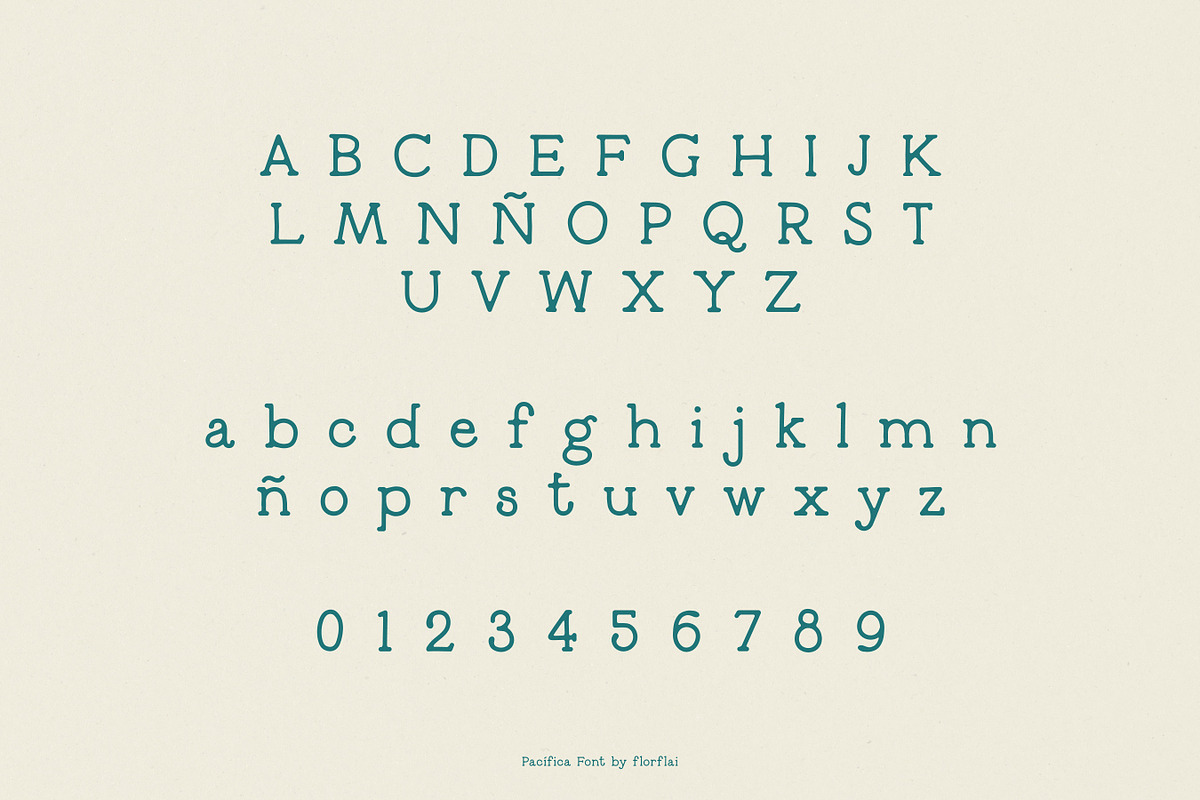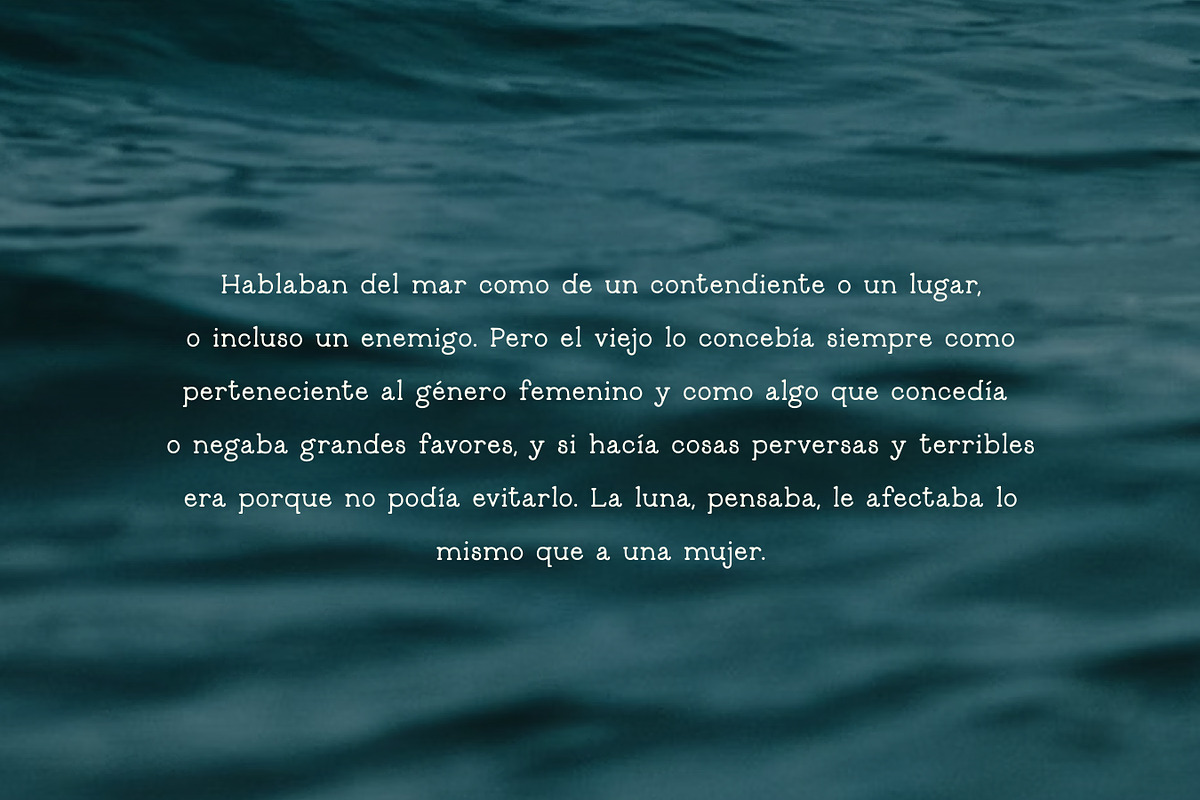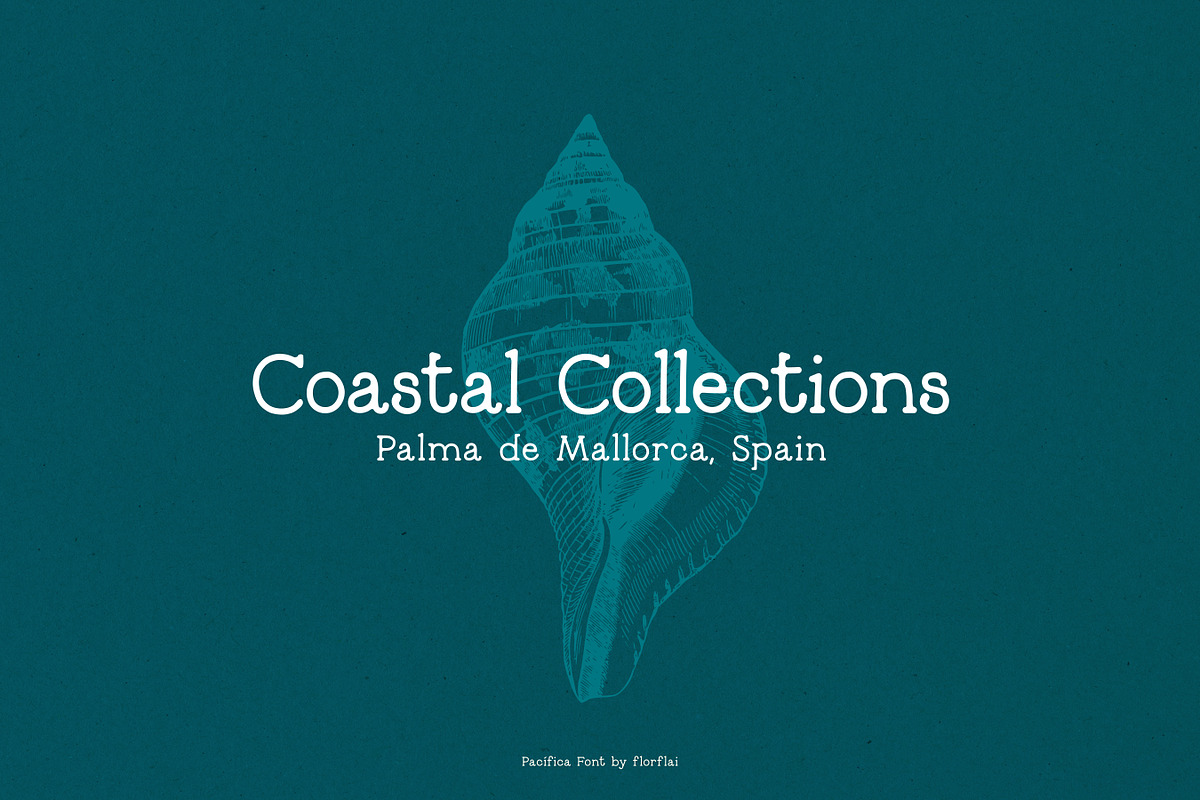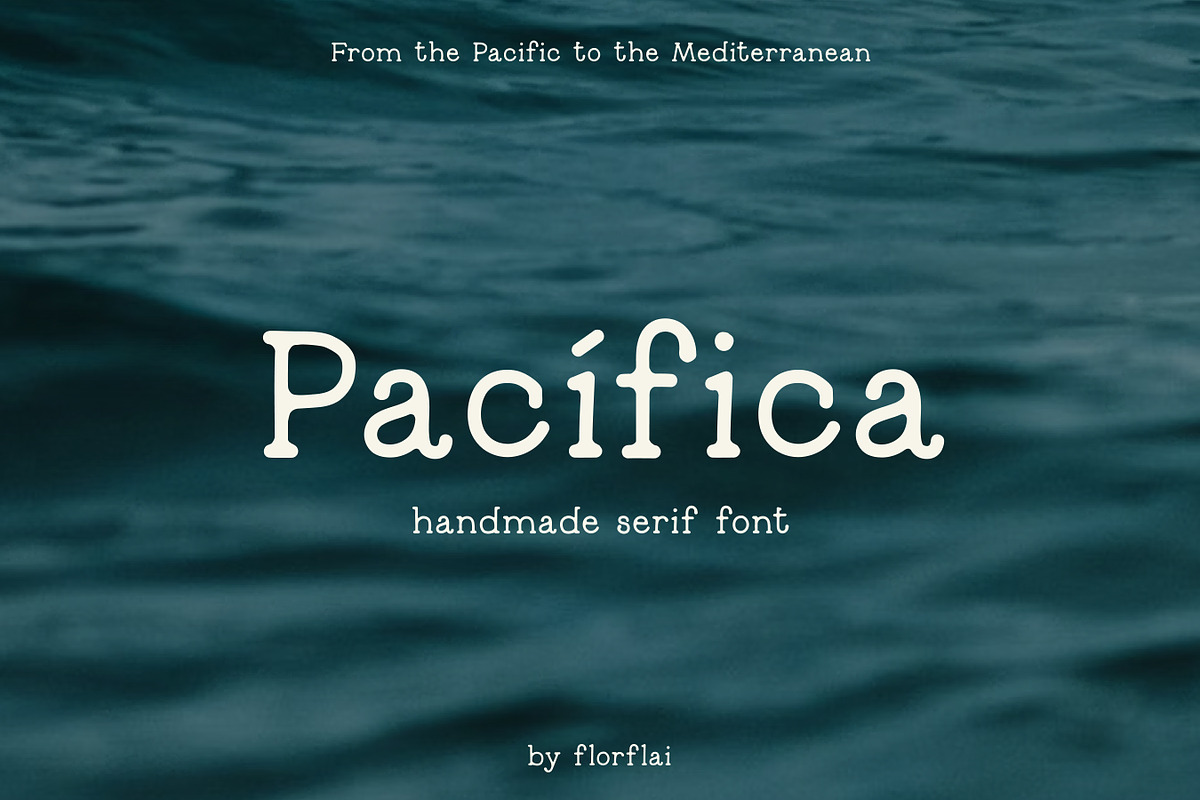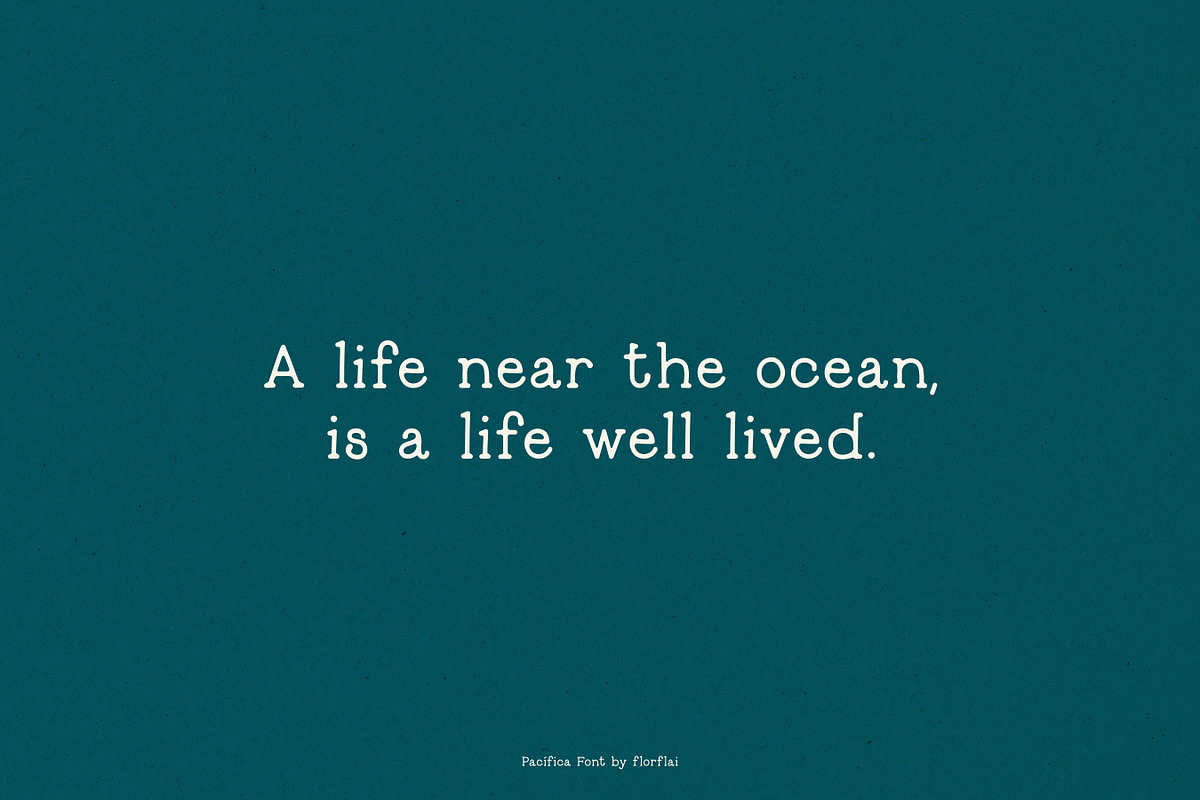
Pacífica
Pacífica is inspired by the calm of the ocean, with a handmade touch that feels coastal. Its thin, elegant characters work well for both text and headlines.
Perfect for branding and social media graphics, Pacífica brings a relaxed, beachy vibe to your projects. The slightly irregular lines give it an authentic feel, ideal for menus, magazines, and more.